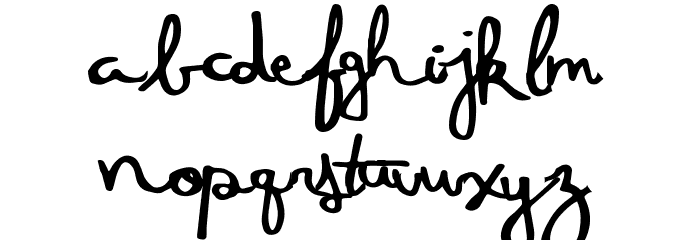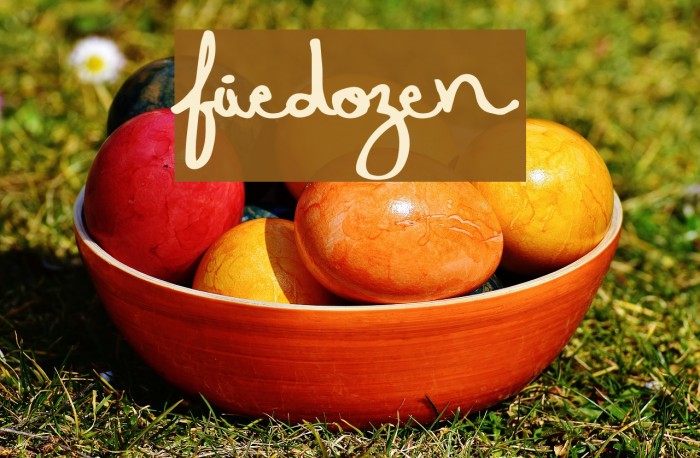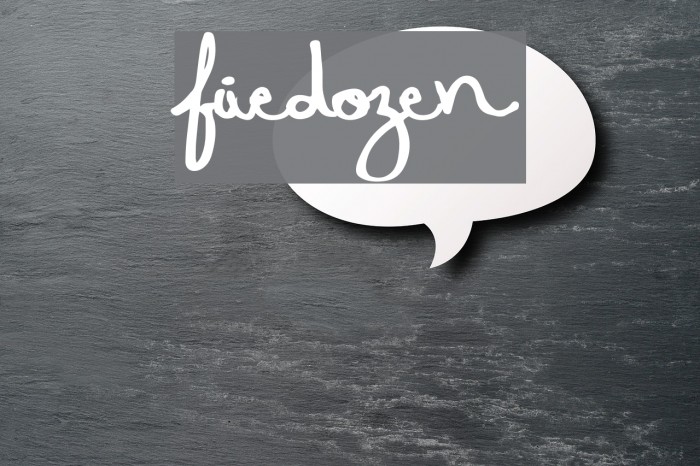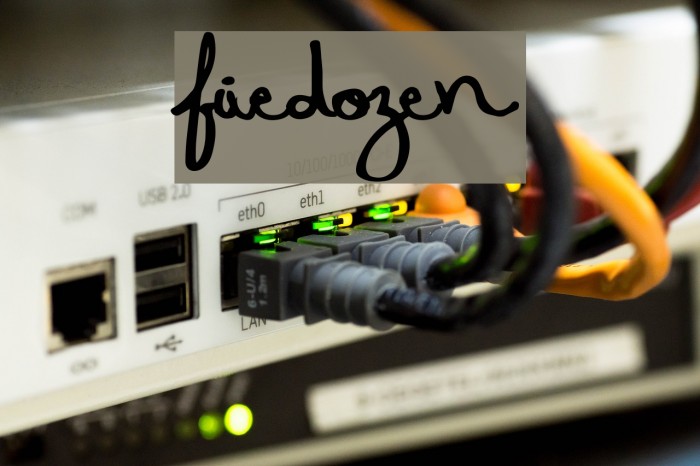
FiveDozen Font
This font features a playful and whimsical handwritten style, characterized by its fluid and continuous strokes. The letters are connected in a cursive manner, giving it a natural and organic feel. The lowercase letters have a consistent height, while the uppercase letters are slightly taller, maintaining a harmonious balance. The font exudes a casual and friendly vibe, making it suitable for informal and creative projects. The absence of special characters and numbers suggests a focus on alphabetic expression, enhancing its artistic appeal.
A playful, whimsical handwritten font with fluid, continuous strokes.
- Proposed Projects: Ideal for greeting cards, invitations, personal notes, and creative branding.
- Overall Style: Casual
- Use Case: Headlines, Creative projects